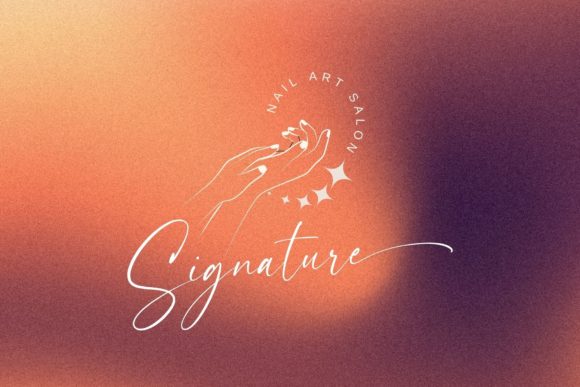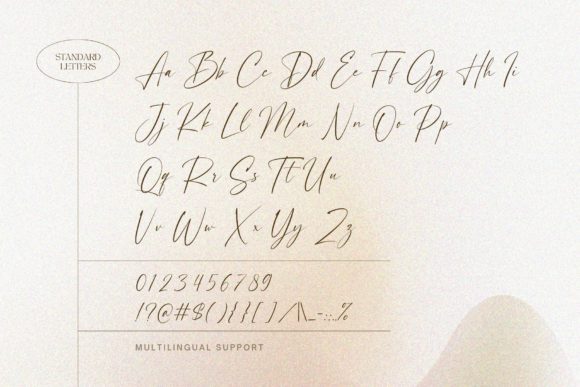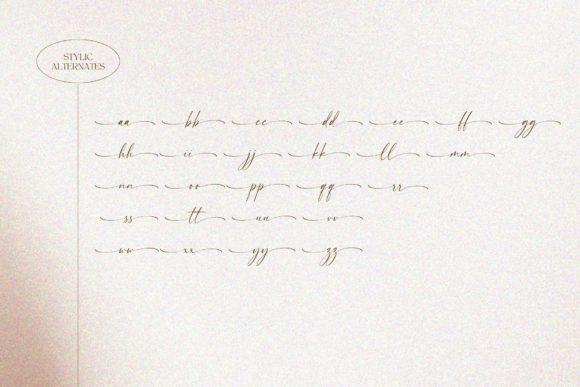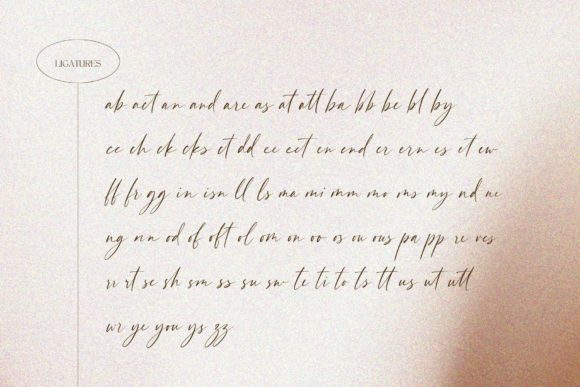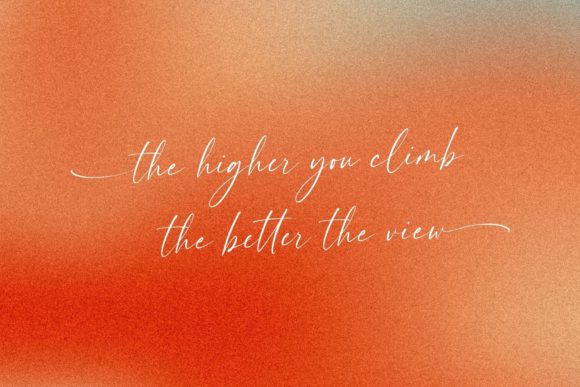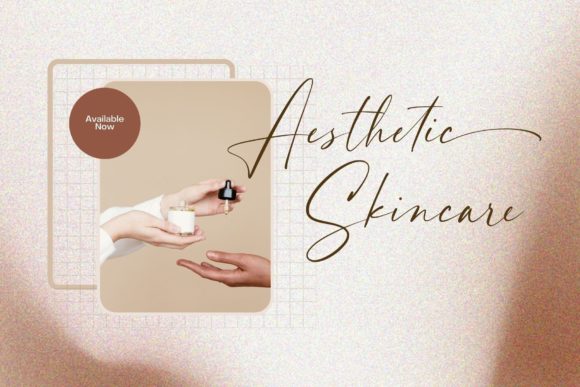
The Beauty of Handwriting Fonts: A Designer’s Delight
Have you ever been working on a design project, pouring your heart and soul into it, only to get stuck on one thing: the font? I remember a particularly frustrating experience when I was designing a wedding invitation card. My client wanted a font that was elegant, yet playful; classic, yet modern. I tried font after font, but nothing seemed to fit the bill. That was until I stumbled upon the Beauty Handwriting font. ✨
A Game-Changing Font: Beauty Handwriting
Beauty Handwriting is a free-flowing script font that has become a staple in my design toolkit. It’s perfect for packaging products, invitation cards, flyers, mockups, event posters, and anything else that requires high-quality vibes. The font has a beautiful and balanced character that fits well with a large design pool. ✅
• ✨ Elegant and flowing script style that’s perfect for high-end designs
• ✅ Highly legible, even at small font sizes
• 🎉 Beautifully balanced character that works well with a variety of design elements
While Beauty Handwriting is an amazing font, it’s not perfect. ⚠️ Some users may find that the font can be a bit too ornate for certain designs. Additionally, the font may not work as well with very short or very long text blocks. 🤔
The Story Behind Beauty Handwriting
Beauty Handwriting was designed by a team of typographers who wanted to create a font that was both elegant and accessible. The font was inspired by traditional calligraphy and handwriting, with a modern twist. The designers aimed to create a font that would be perfect for a range of design projects, from wedding invitations to product packaging. 📝
Author Sigit Dwipa
Q: Is Beauty Handwriting suitable for body text?
A: While Beauty Handwriting is a beautiful font, it’s best suited for headlines and short text blocks. For body text, you may want to choose a font that’s more legible and easier to read.